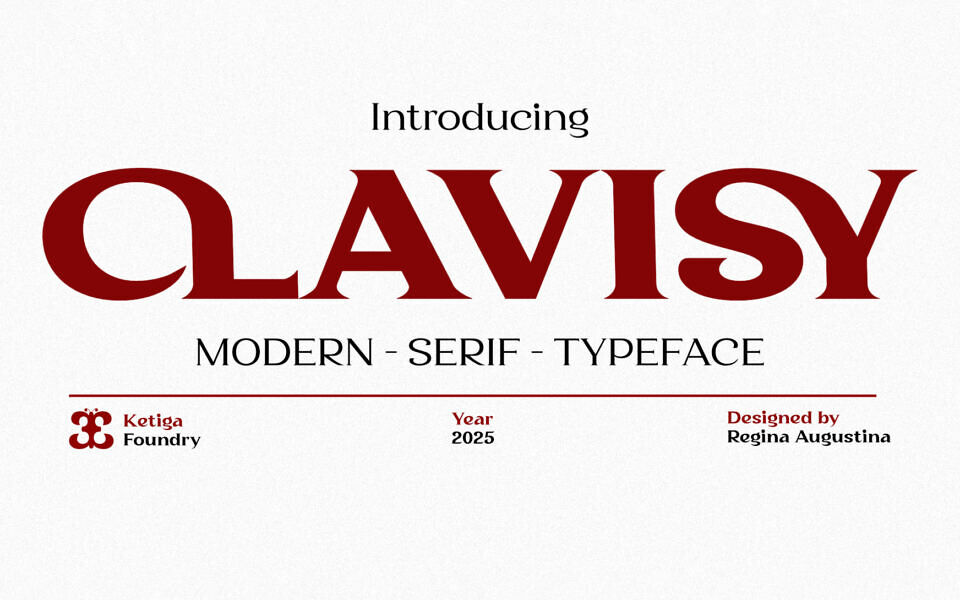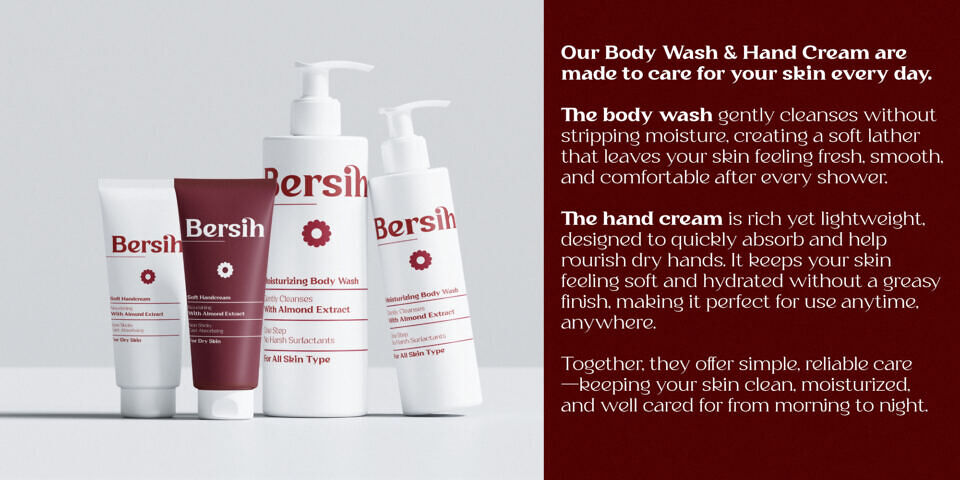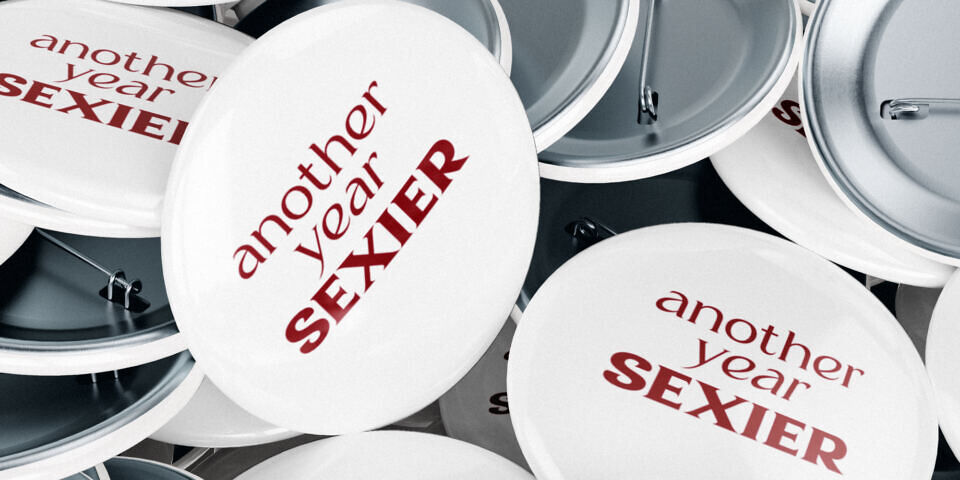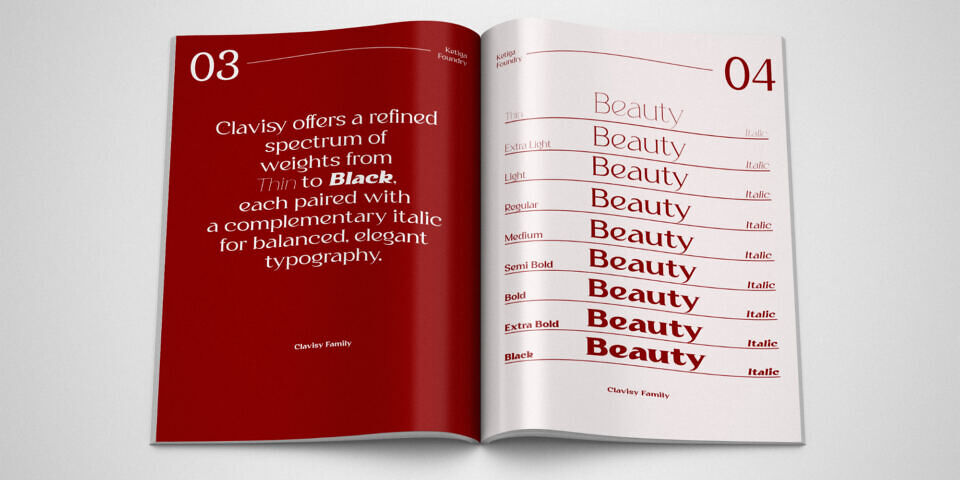
Clavisy Font
Clavisy is a modern serif typeface crafted for brands and creatives seeking refinement without sacrificing personality. Its sleek curves, sharp details, and balanced proportions create a timeless aesthetic that exudes both luxury and contemporary flair.
Designed with versatility in mind, Clavisy excels in high-end branding, fashion editorials, packaging, magazines, social media graphics, and logos that require a polished yet distinctive voice.
The expressive italics provide a stylish contrast, enhancing headlines, quotes, and display typography with effortless elegance. Each letter is meticulously shaped to ensure clarity, sophistication, and a strong visual rhythm—making Clavisy an exceptional choice for designers aiming to make their work stand out with grace.